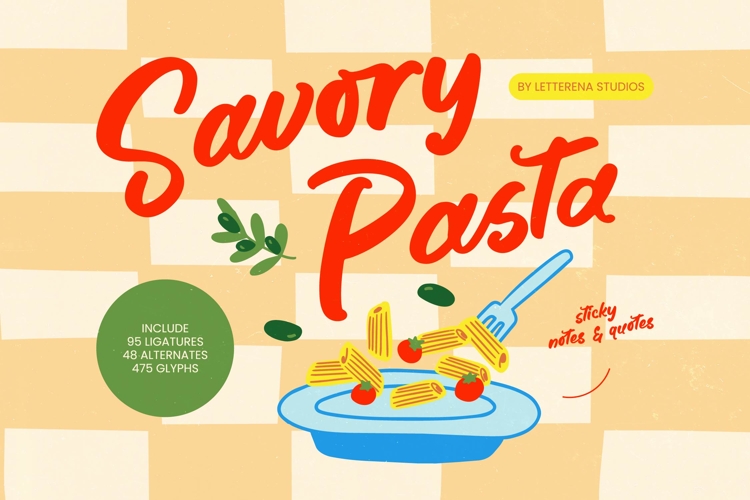
Savory Pasta - Sticky Notes & Quotes
Elevate your creative projects with a touch of organic charm and hand-drawn aesthetics. Savory Pasta - Sticky Notes & Quotes is a masterfully crafted script font that captures the fluid motion of a brush, offering a warm and inviting personality to any visual storytelling endeavor. Its natural rhythm and effortless flow make it an essential tool for designers seeking to add an authentic, human touch to their digital and print media, ensuring a premium look that resonates with modern audiences.
Precision meets personality in this highly versatile typeface, making it the perfect choice for a wide array of applications. Savory Pasta - Sticky Notes & Quotes is ideally suited for culinary branding, packaging design, and restaurant menus, where its flavorful aesthetic truly shines. Whether you are working on luxury branding, social media graphics, or editorial projects, this font provides the artistic flair necessary to capture consumer attention and build a memorable, cohesive brand identity.